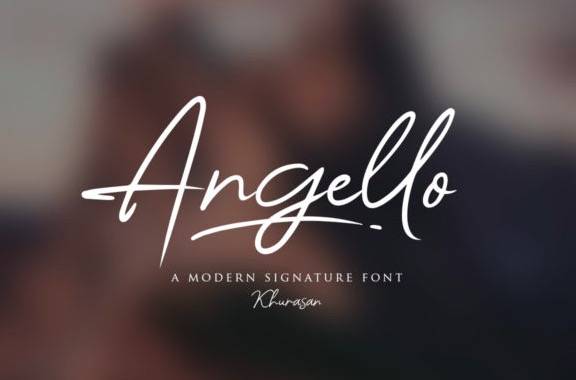
Angello Signature Font
About Angello Font! Angello Font is a refined handwritten typeface which was released by Khurasan. This font has a fresh and unique style handmade. Angello font is a fresh and casual handwritten typeface with an incredibly friendly look. Angello font will give any creative idea into a true piece of art!
Angello Handwritten Font is an exclusive stunning handwriting script typeface with elegant style. This handwritten font has a perfectly managed with well-spaced and gorgeously. Angello is a cute handwritten font carefully designed with a touch of soft.
Angello Handwritten font will be great for any projects including logo, branding, business card, flyer, stationery, brochure, signage, etc.